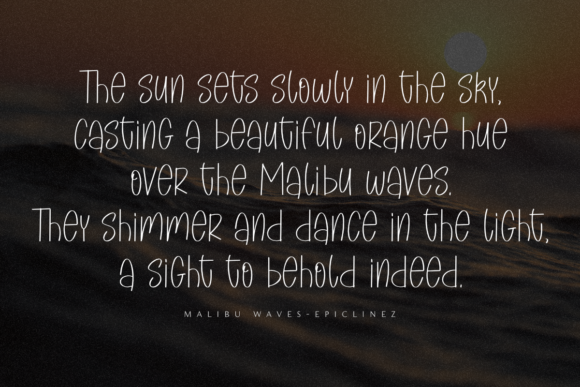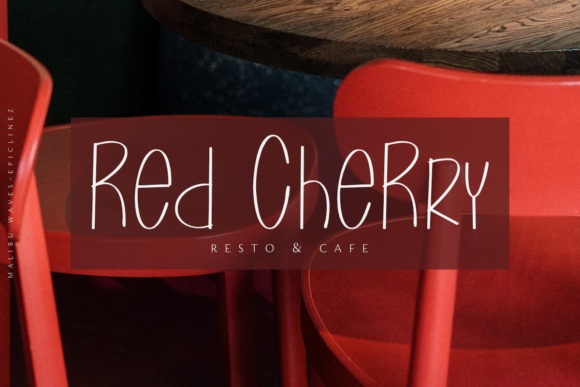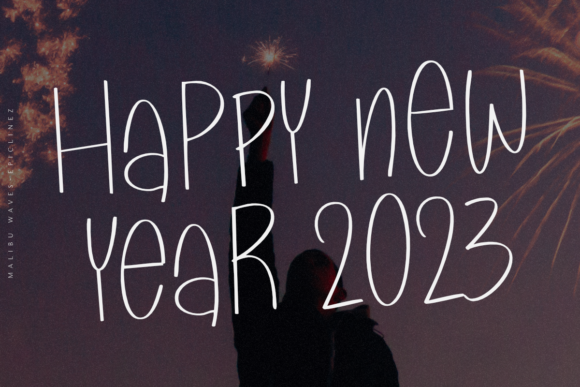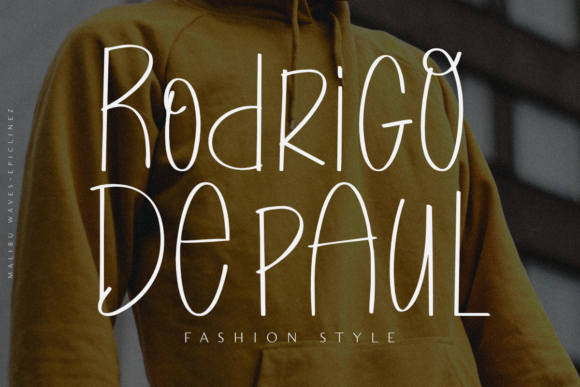
Introduction to Malibu Waves Font
Malibu Waves is a lovely and timeless handwritten font.
Key Features of Malibu Waves Font
Why Choose Malibu Waves Font?
Malibu Waves Font offers exceptional quality and versatility, making it a valuable addition to your design toolkit. Whether you’re creating for personal projects or commercial use, Malibu Waves Font delivers professional results.